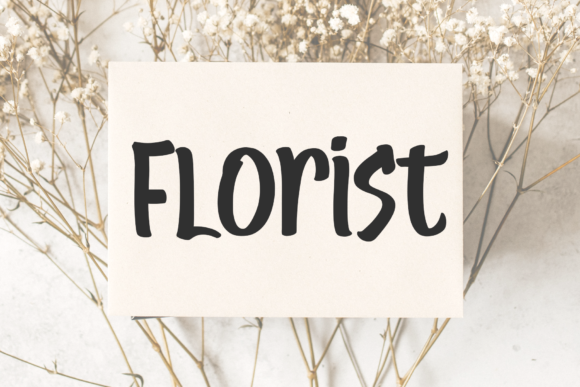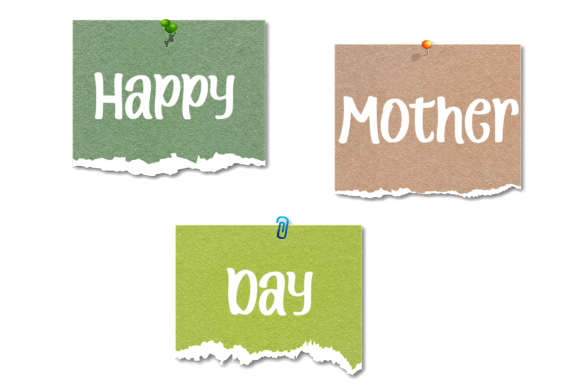
Farmine Font
db-ku.com - Script & Handwritten -- Farmine is a beautiful and neat display font, perfect for making your designs stand out from the crowd. Its characters are perfect for wall displays, wedding invitations, social media post logos, advertisements, product packaging, product designs, labels, photography, watermarks, invitations, stationery, and any project that requires modern typography. This font is PUA encoded which means you can access all of the amazing glyphs and ligatures with ease!